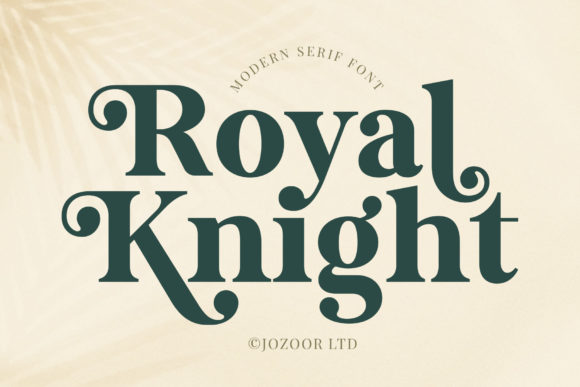
Introducing the Royal Knight Font, the ultimate choice for anyone looking for the best font for cutting wood. Designed by Jozoor, this cool and stylish serif font boasts a unique style and modern look that is sure to captivate any audience.
Whether you're looking to create an elegant and luxury logo, a book or movie title, a fashion brand, magazine, clothes, lettering, or even quotes, the Royal Knight Font is the perfect choice. Its versatile nature and eye-catching design make it suitable for a wide range of projects.
One of the key features of the Royal Knight Font is its PUA encoding, which means you can access all of the glyphs and swashes with ease. This allows you to create a truly customized and personalized design that stands out from the crowd.
But what really sets the Royal Knight Font apart is its ability to evoke emotion and captivate its audience. Its stylish and modern look is sure to leave a lasting impression on anyone who sees it, making it the perfect choice for anyone looking to make a statement.
So why settle for a boring and generic font when you can have the Royal Knight Font? With its unique style, versatile nature, and captivating design, it's the ultimate choice for anyone looking to elevate their project to the next level.